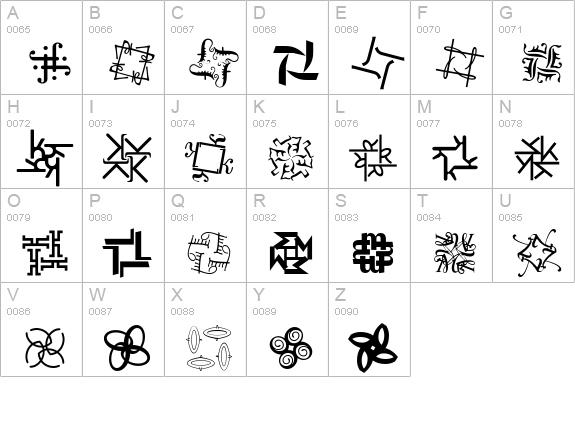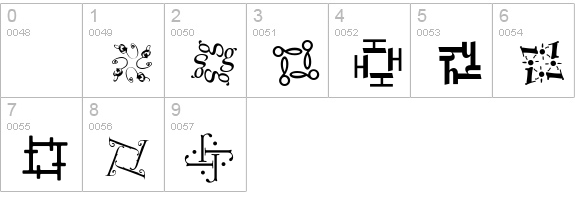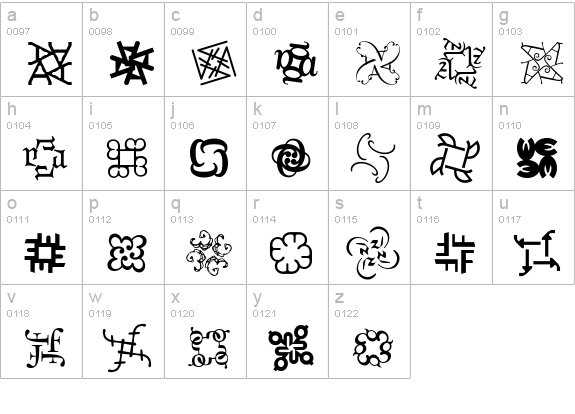
HypnopaediaOne Font Details
Introducing HypnopaediaOne font, a stunning display typeface that is both elegant and eye-catching. With its sleek lines and modern aesthetic, HypnopaediaOne is perfect for adding a touch of sophistication to any design project. What sets HypnopaediaOne apart is not only its striking appearance, but also the fact that it is available for free download at FontsMarket.com. This means that you can easily access this beautiful font without any cost, making it a versatile and budget-friendly option for all your creative endeavors. Whether you're working on a branding project, designing a poster, or creating social media graphics, HypnopaediaOne is sure to make a statement. Its unique style and versatility make it a must-have font for any designer looking to elevate their work. Download HypnopaediaOne today and unleash your creativity with this exceptional typeface.